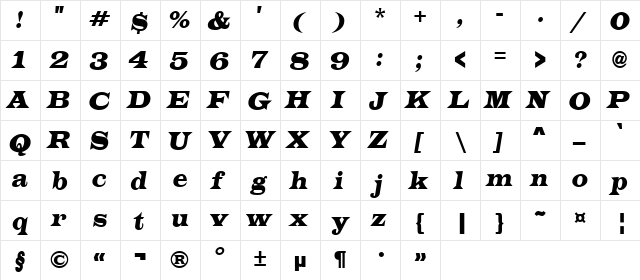
a_Latino Italic
Design Context for a_Latino Typeface
a_Latino is a composed and adaptable typeface that performs quietly and consistently across a wide range of design contexts. The slanted form adds forward momentum and visual energy.
Pro Tip: Try a_Latino for annotation and caption copy alongside an upright companion — the contrast in angle creates a dynamic but ordered typographic system.